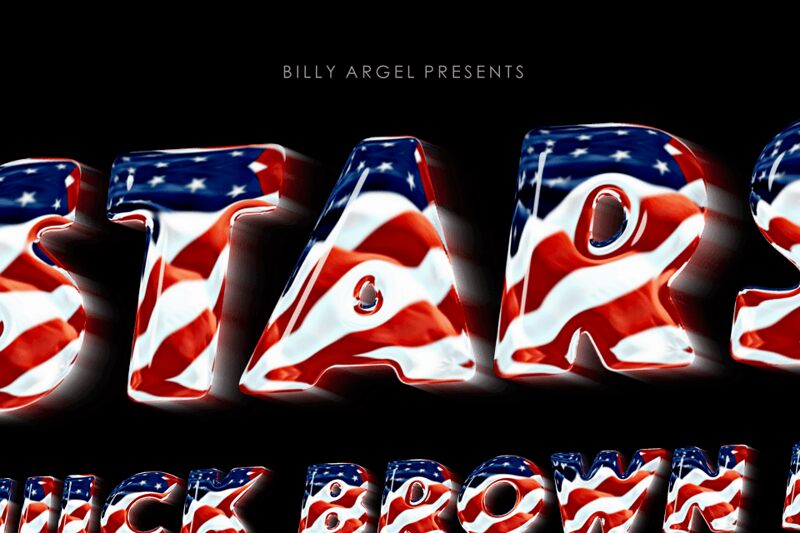
Stars & Stripes font by Billy Argel Fonts is a free decorative font that reflects a remarkable artistry approach. The careful design of each letter adds a unique character that makes this font stand out and makes Stars & Stripes an ideal typeface for typography lovers.